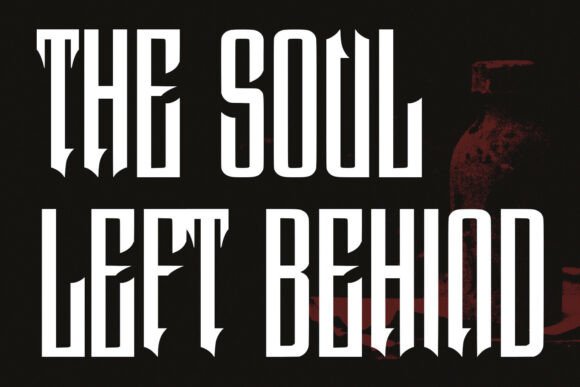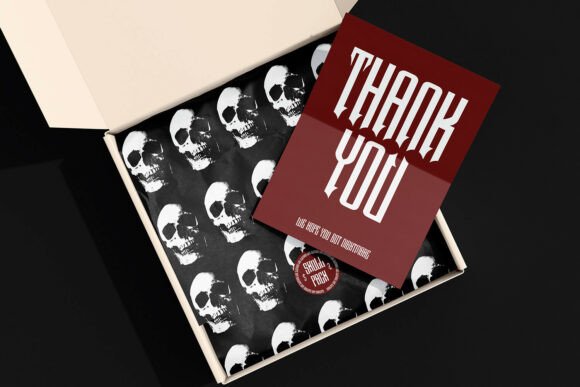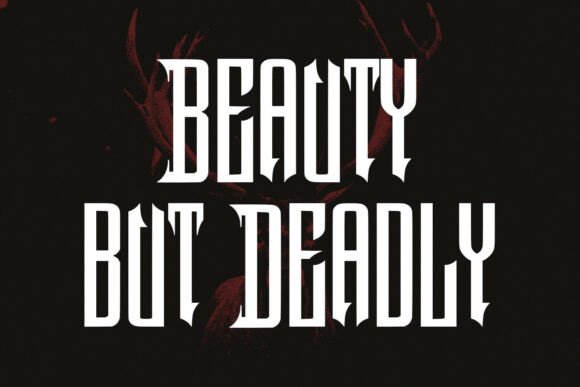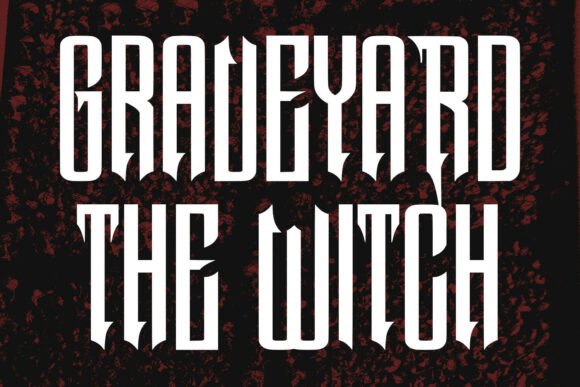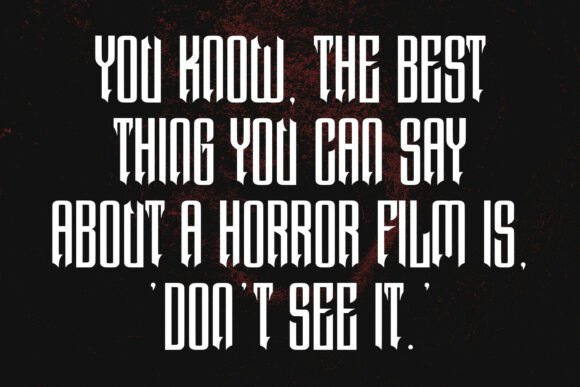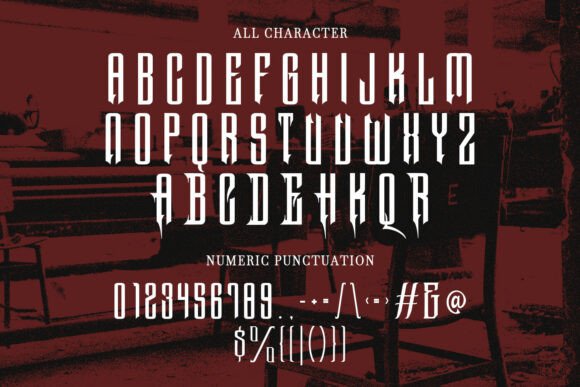
Introducing Ammeq Font: A Modern Victorian Hand-Lettering with a Classic Touch
In the world of typography, fonts play a crucial role in conveying messages, expressing emotions, and creating a lasting impression. For designers, crafters, and typography enthusiasts, finding the perfect font can be a daunting task. However, if you’re looking for a font that combines modern and classic typography with a touch of elegance, look no further than Ammeq Font. In this article, we’ll explore the unique features of Ammeq Blackletter Font, a handmade Modern Victorian hand-lettering that brings a classic touch to this decade.
A Blast from the Past: The Inspiration Behind Ammeq Font
Ammeq Font takes inspiration from the early 1800s, a time when blackletter typography was at its peak. During this era, typography was characterized by intricate lettering, ornate details, and a sense of grandeur. Ammeq Font brings this classic style into the modern age, blending traditional techniques with contemporary flair. The result is a font that exudes sophistication, elegance, and a touch of nostalgia.
What Makes Ammeq Font Unique?
So, what sets Ammeq Font apart from other fonts? Here are a few unique features that make it a standout:
- Handmade with love: Ammeq Font is a handmade font, crafted with precision and care. Each letter is carefully designed to ensure a unique and authentic look.
- Modern Victorian style: Ammeq Font combines the classic style of the Victorian era with modern typography techniques, creating a truly unique look.
- Awesome alternates: The font comes with a range of alternates, allowing you to experiment with different styles and create a truly customized look.
- Blackletter typography: Ammeq Font features traditional blackletter typography, characterized by intricate lettering and ornate details.
Ammeq Font is perfect for designers and crafters looking to add a touch of elegance and sophistication to their projects. Whether you’re working on a logo, branding project, or craft project, Ammeq Font is sure to impress. Here are a few ways you can use Ammeq Font:
- Logos and branding: Use Ammeq Font to create a unique and memorable logo that stands out from the crowd.
- Stationery and invitations: Add a touch of elegance to your stationery, invitations, and greeting cards with Ammeq Font.
- Craft projects: Use Ammeq Font to add a personal touch to your craft projects, such as scrapbooking, journaling, and card making.
Why Choose Ammeq Font?
With so many fonts available, why choose Ammeq Font? Here are a few reasons:
- Unique and authentic: Ammeq Font offers a unique and authentic look that’s sure to stand out from the crowd.
- High-quality design: The font is carefully crafted with precision and attention to detail, ensuring a high-quality design.
- Easy to use: Ammeq Font is easy to use and comes with a range of alternates, making it perfect for designers and crafters of all levels.
In conclusion, Ammeq Font is a truly unique and special font that brings a classic touch to this decade. With its handmade Modern Victorian style, awesome alternates, and traditional blackletter typography, it’s perfect for designers and crafters looking to add a touch of elegance and sophistication to their projects. Whether you’re working on a logo, branding project, or craft project, Ammeq Font is sure to impress. So why not give it a try and experience the beauty of Ammeq Font for yourself?